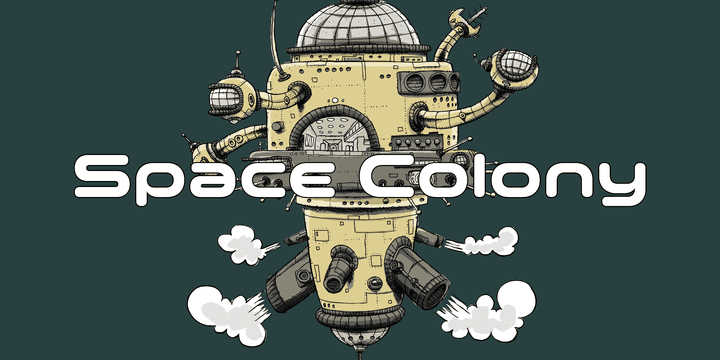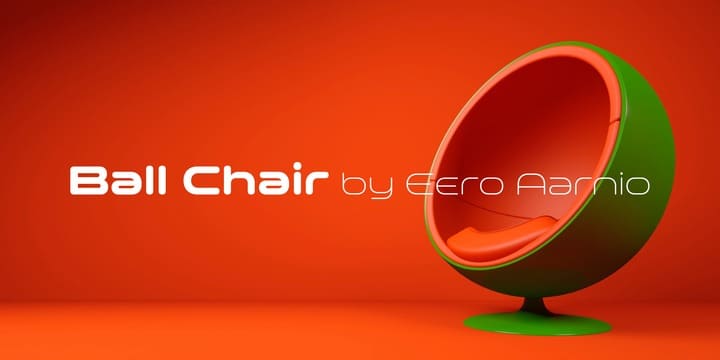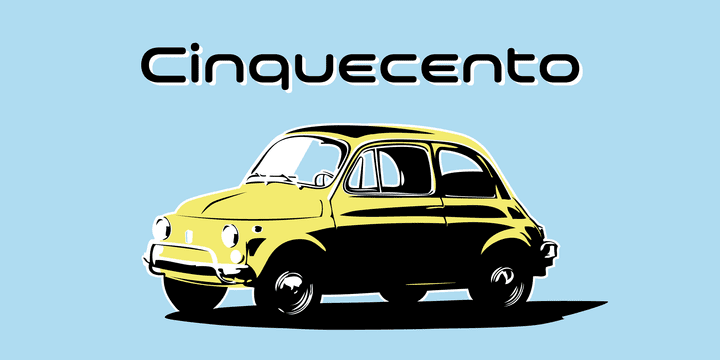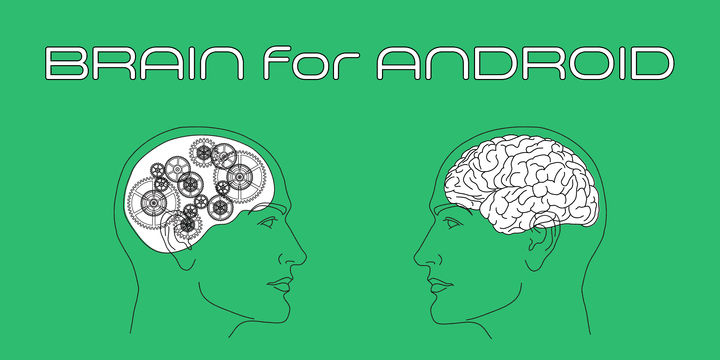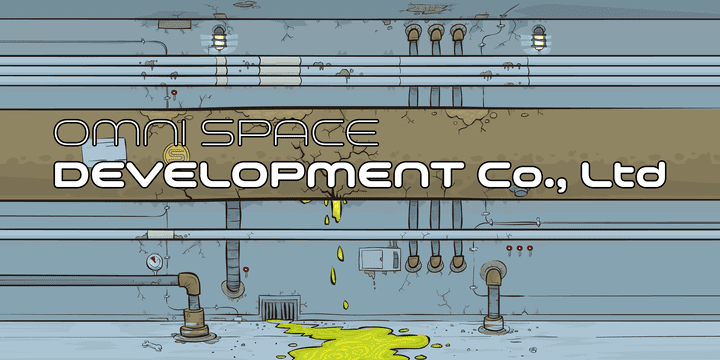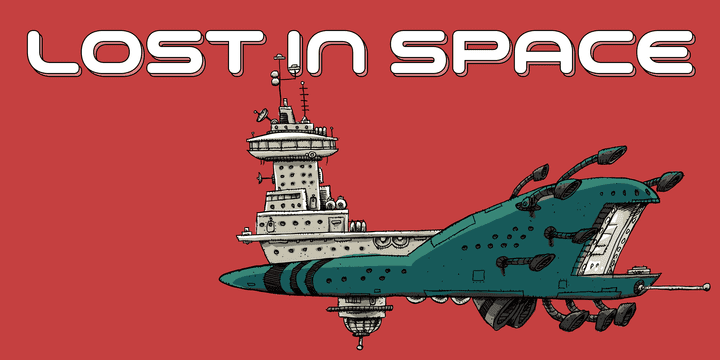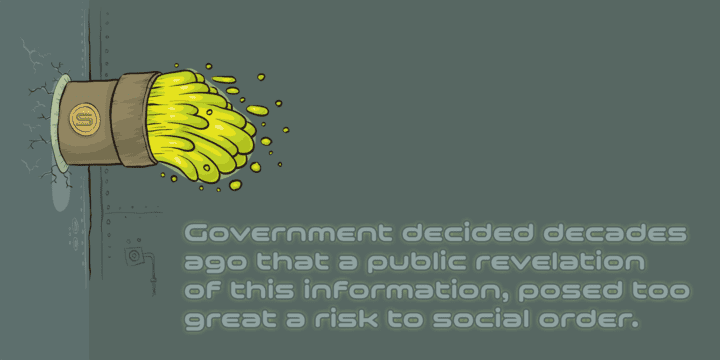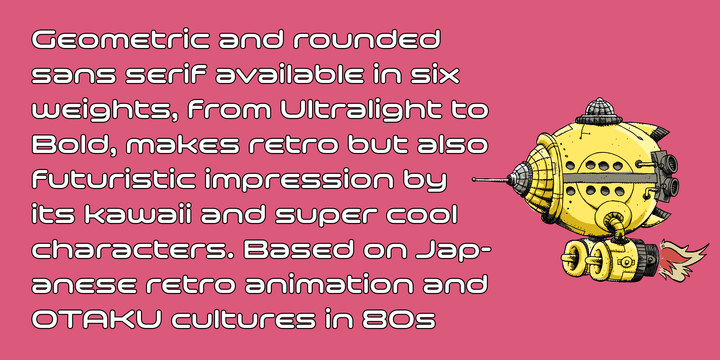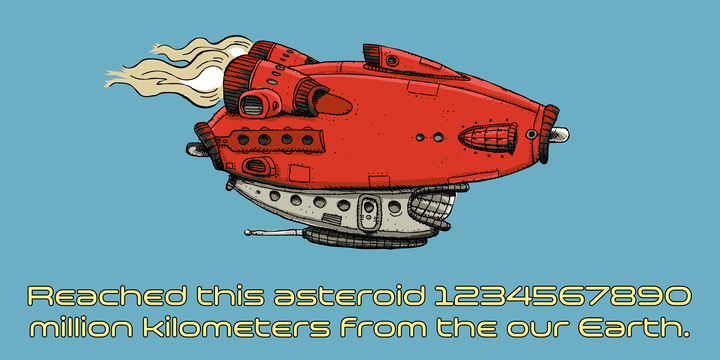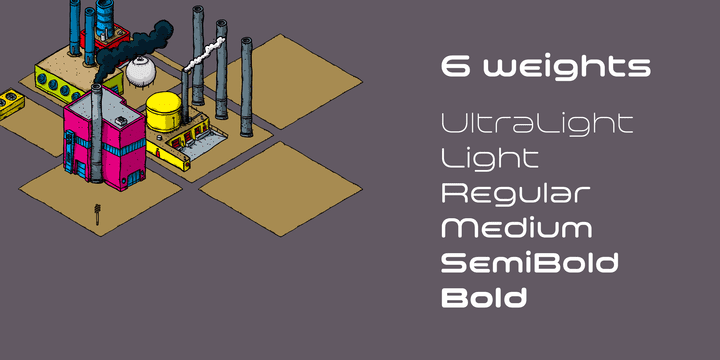
Space Colony Family (6 fonts)
In the begining of 2011, I restarted working with the sketches to complete as a font file. Detail and some shape were improved retaining the original concept and they were completed, then named ‘Space Colony’. Just as the name implies, this wide and geometric font family consisting of six weights was designed targeting at use for futuristic product of game, movie, logo and so on. Not only that but the rounded shape makes a lovely, cute and soft impressions so this font is also suited for cartoons, animations and character merchandise too.